Marriage is an important moment in life. Of course, we want to display everything well so that it becomes a moment that is always remembered. Celebrating it with the closest people is the desire of all who are married, for that we want all elements in the celebration to be beautifully and beautifully designed. Among them are invitation cards, greeting cards, gifts, or wedding posters.
The beautiful design is supported by the use of fonts in writing messages in it. We provide some recommendations for romantic fonts that you can use in your wedding design project.
Brendria – Signature Font
Brendria Signature font. It has an elegant, classy look and beauty.
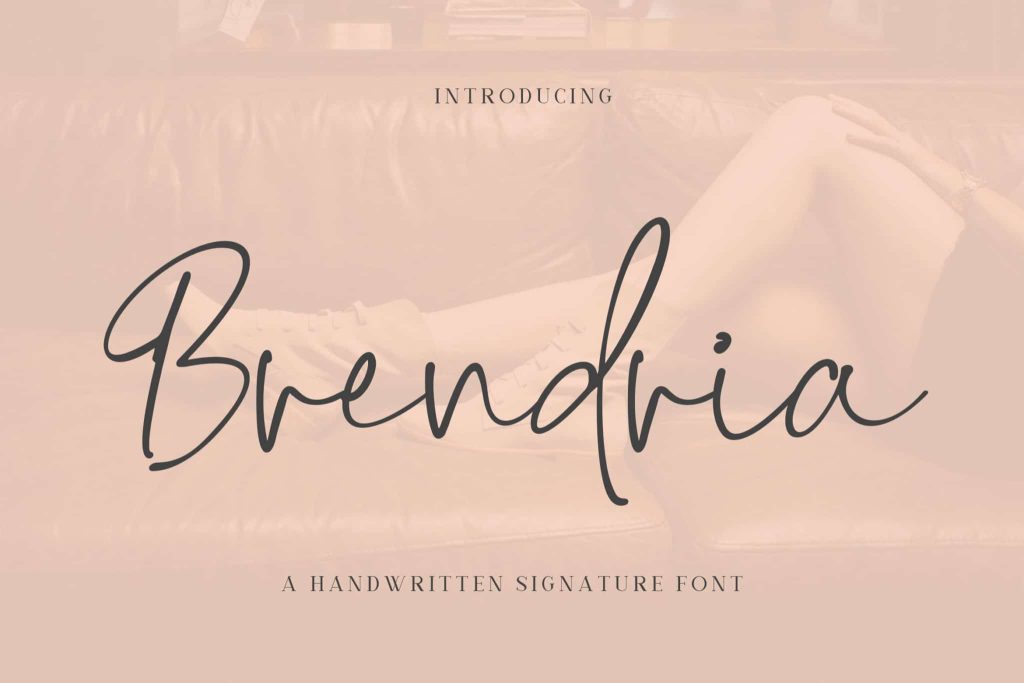
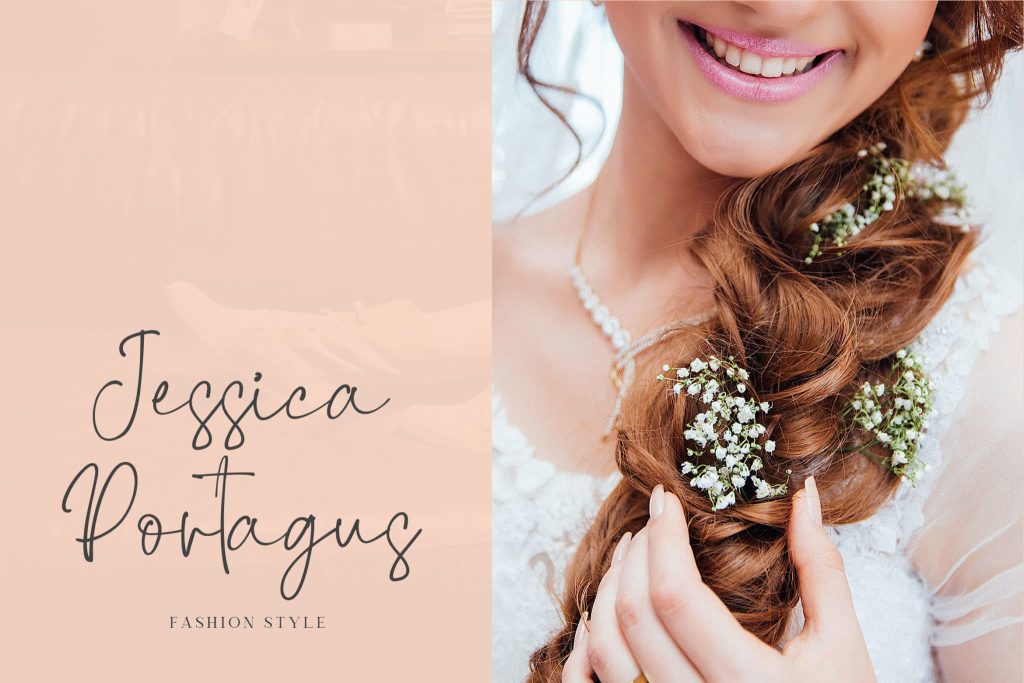
King Waller – Signature Font
King Waller is a simple signature handwritten font.
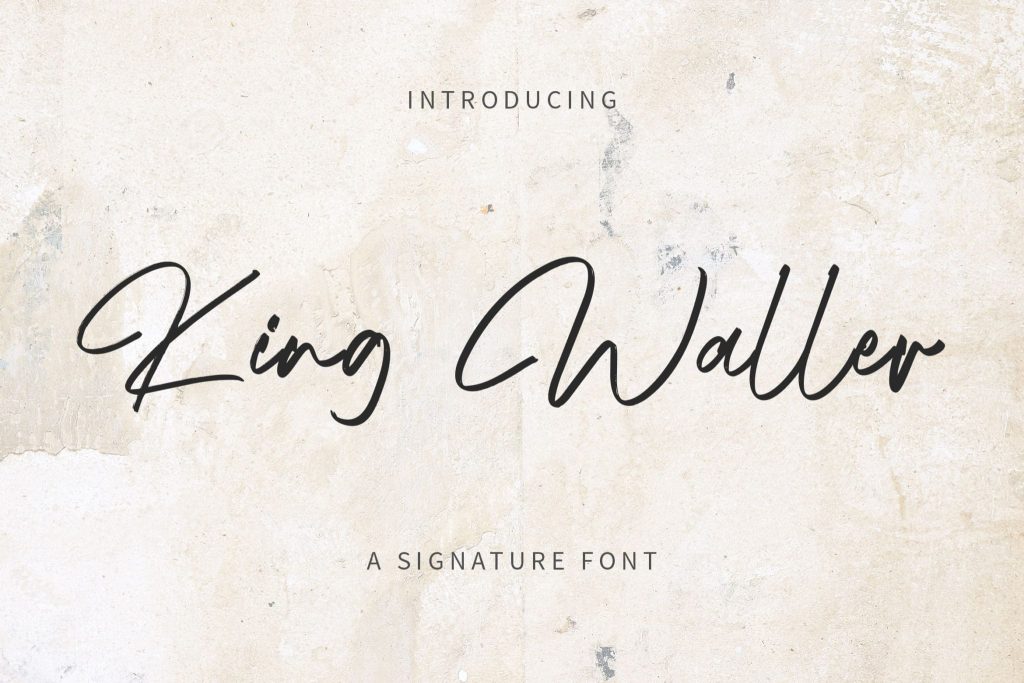
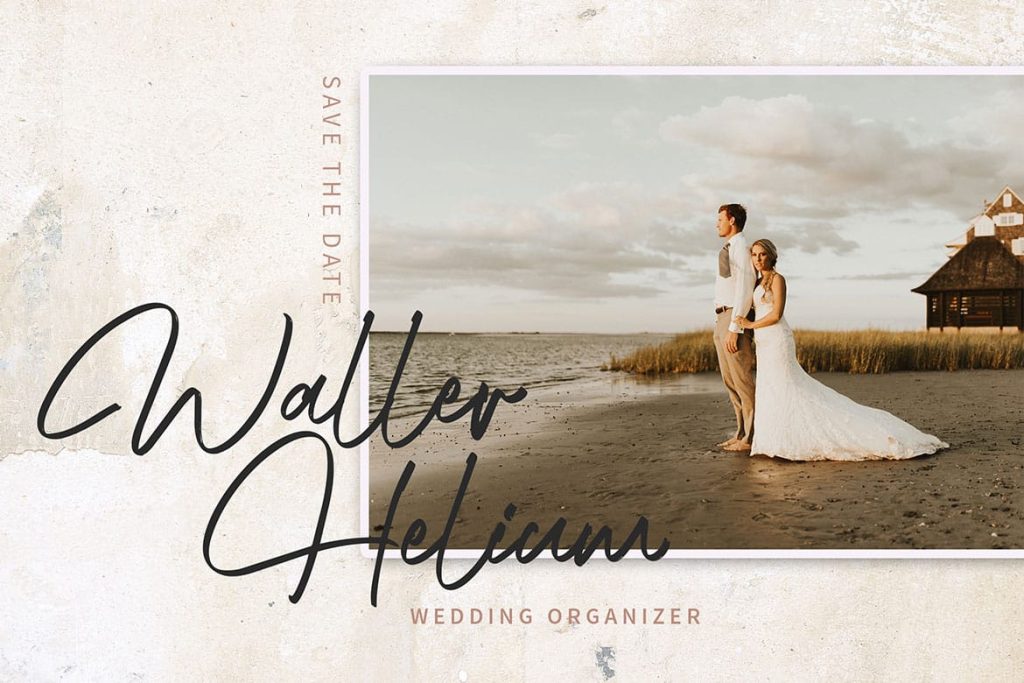
The Morgan – Signature Script Font
The Morgan is a simple, textured, unique handwritten font.
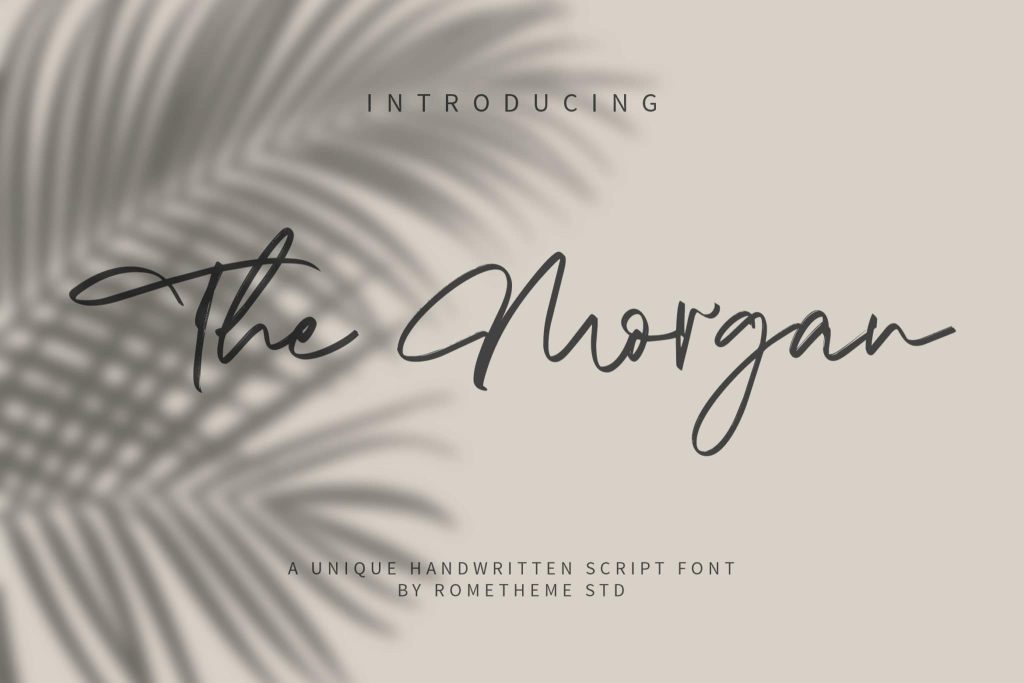
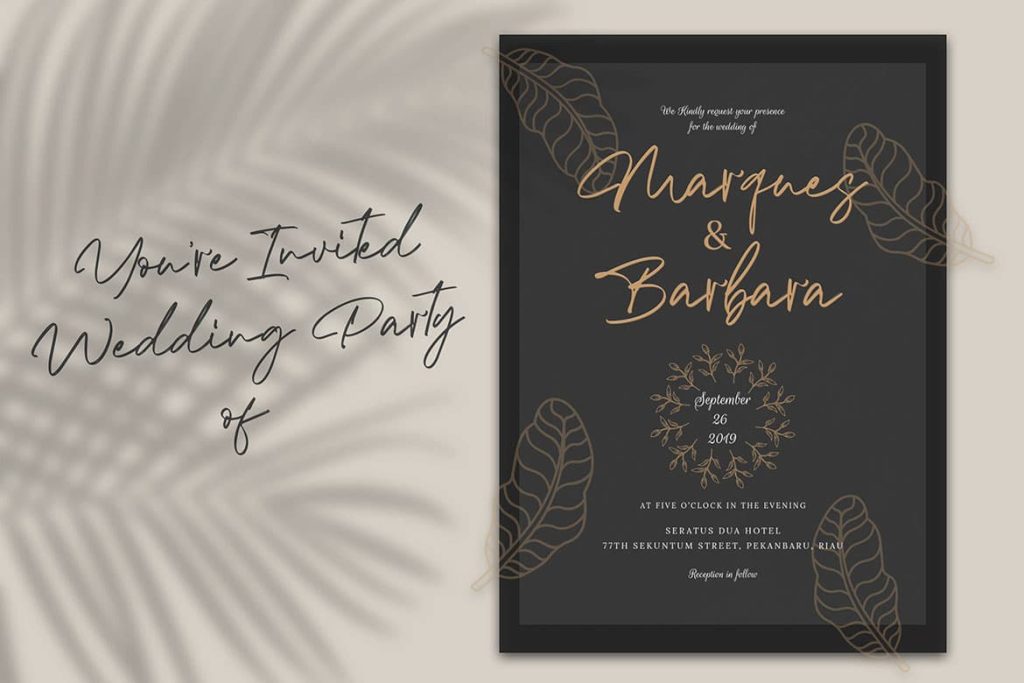
Violet Watson – Script Font
Violet Watson is a script font, this font looks classy, luxurious, elegant, romantic, and awesome.
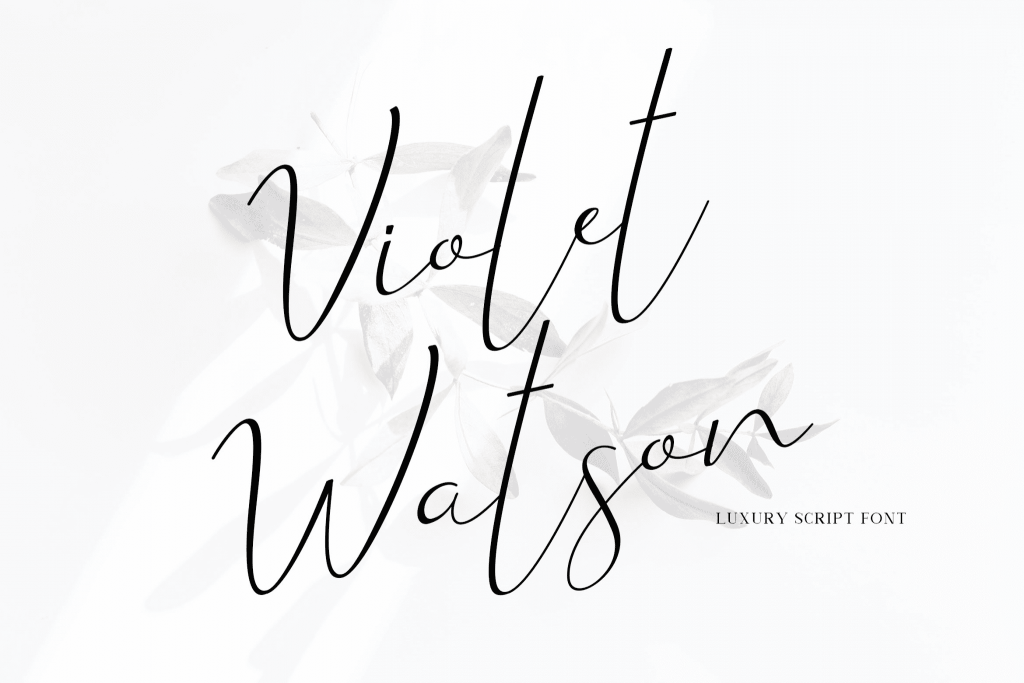
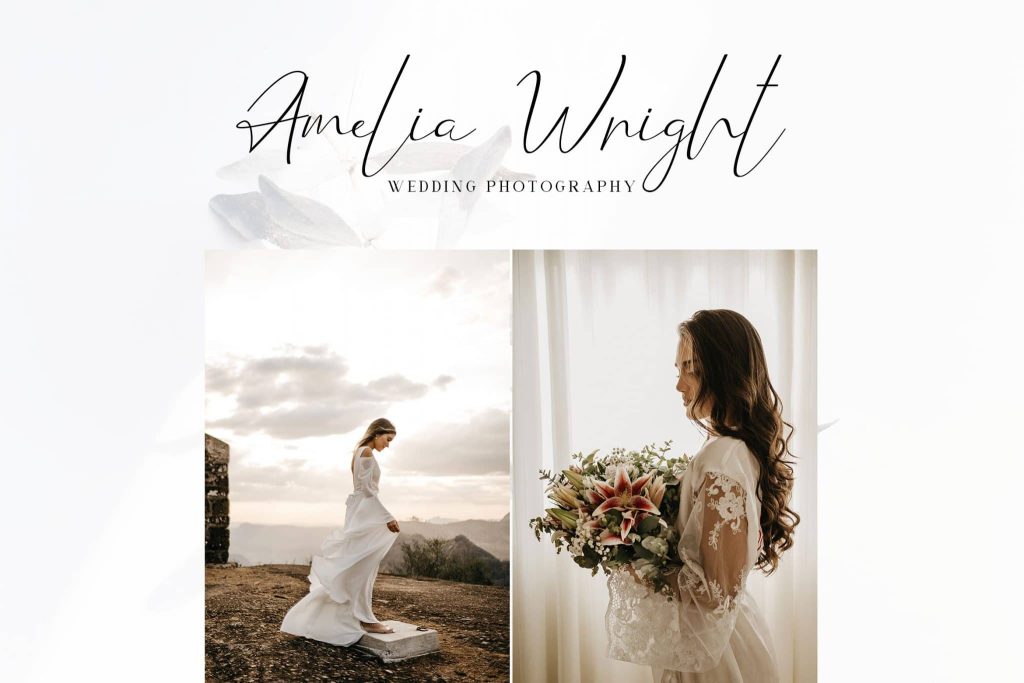
Lovestrong – Script Font
Lovestrong Script is a beautiful and modern handwritten font script. This font looks elegant, classy, readable, stylish, catchy, and easy to use.